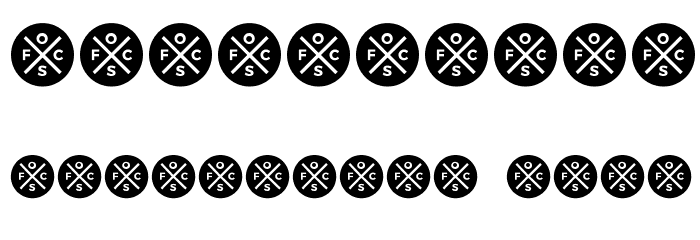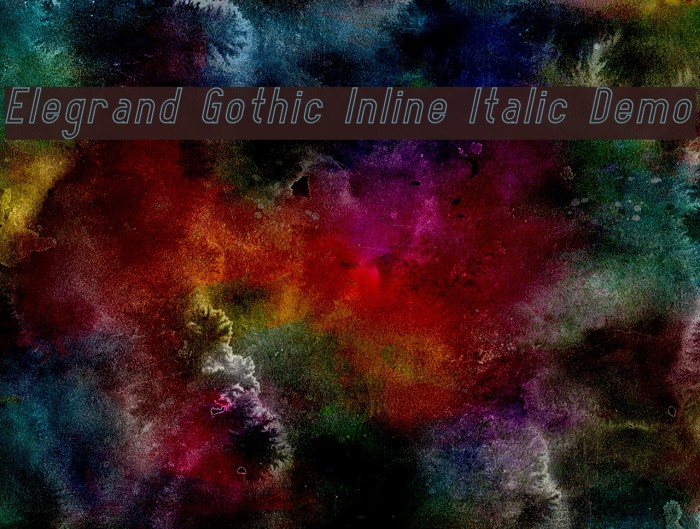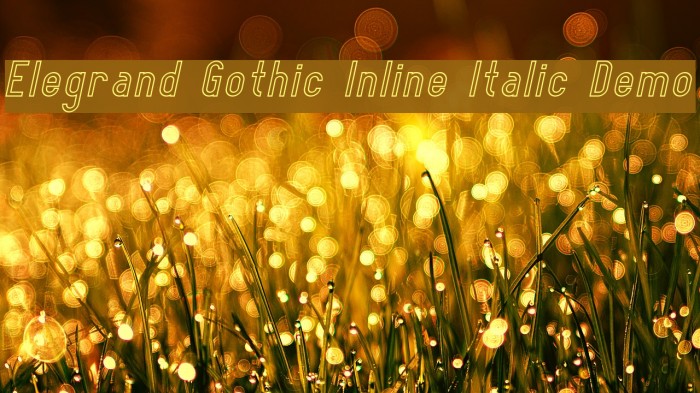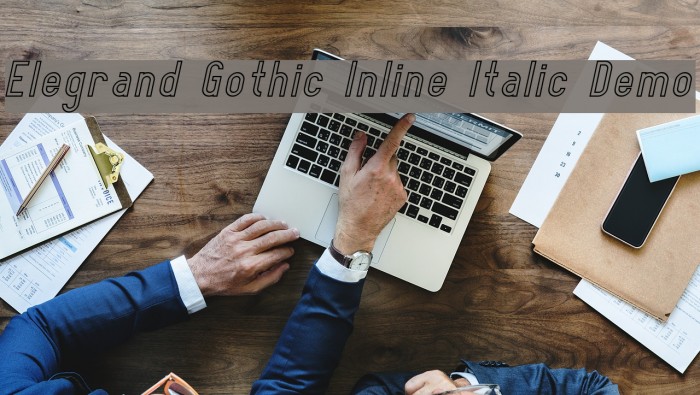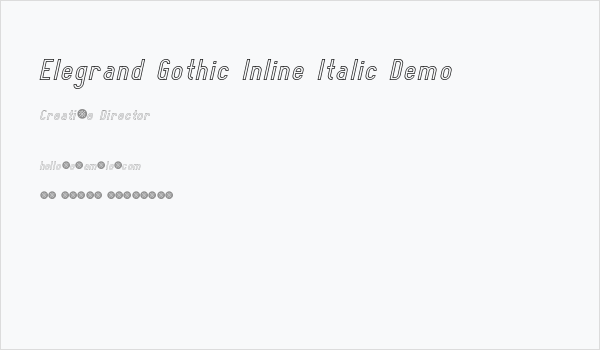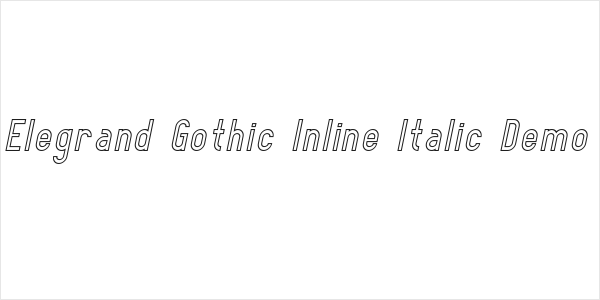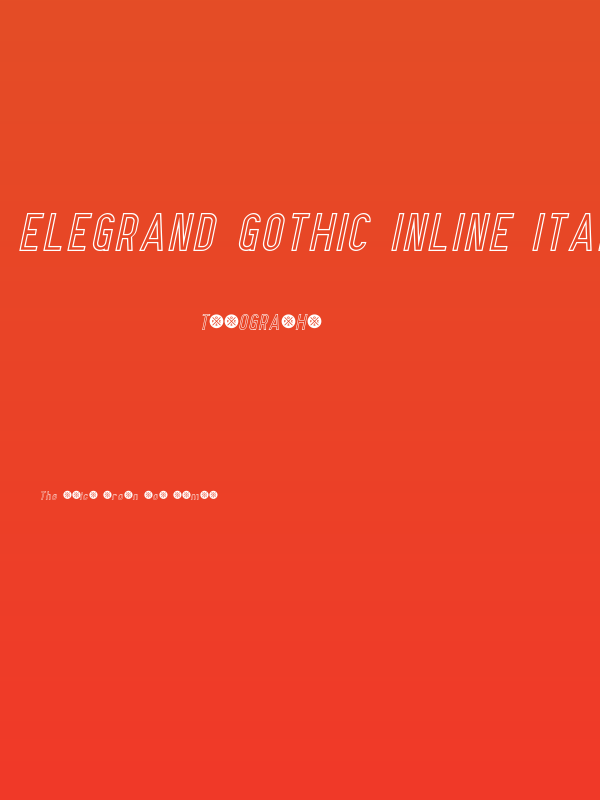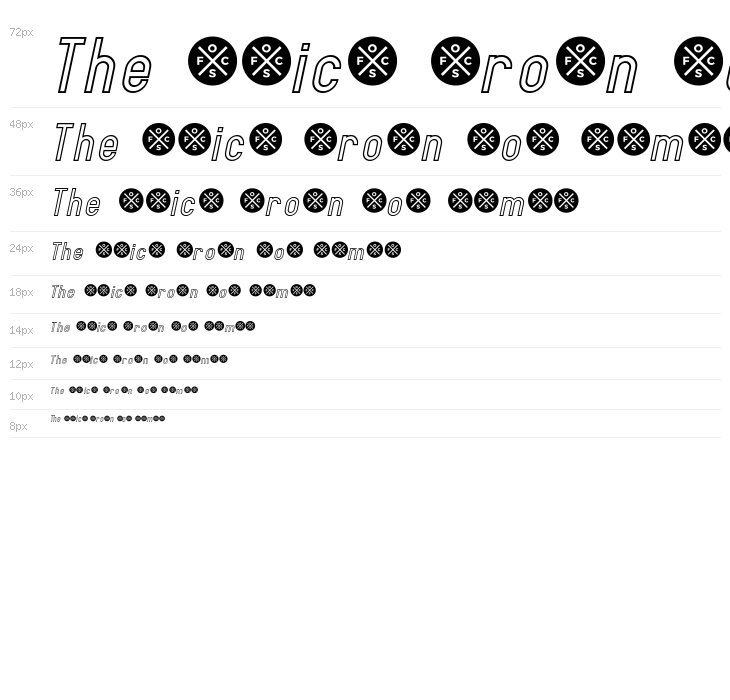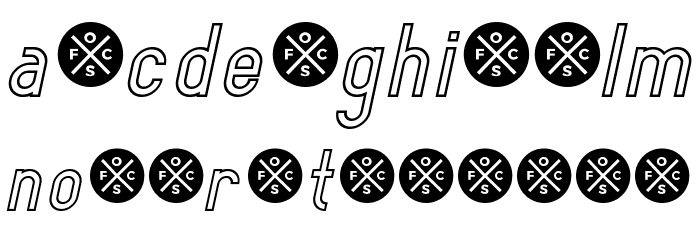
Elegrand Gothic Inline Italic Demo Font
Elegrand Gothic Inline Italic Demo Description
This font features a modern and sleek design with an inline style that adds a unique touch to each character. The italicized form gives it a dynamic and forward-leaning appearance, making it suitable for contemporary and creative projects. The uppercase and lowercase letters maintain a consistent style, with clean lines and a geometric structure. The numerals and special characters are designed to complement the alphabet, ensuring a cohesive look across all text elements. This font's distinctive inline detail enhances its visual appeal, making it stand out in various design contexts.
| Proposed Projects | Ideal for branding, advertising, posters, and modern web design projects. |